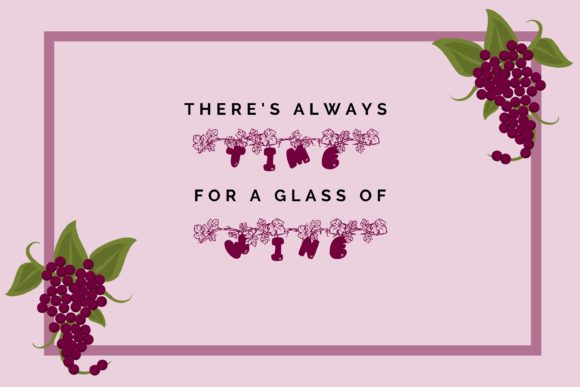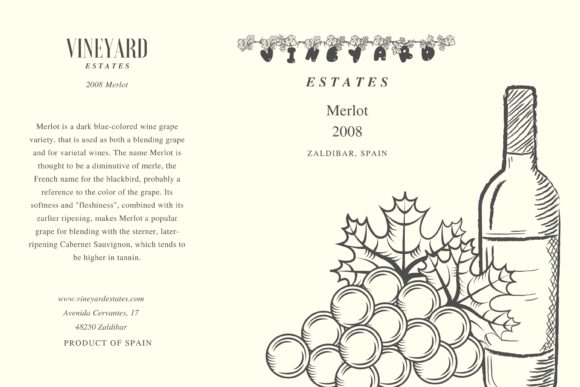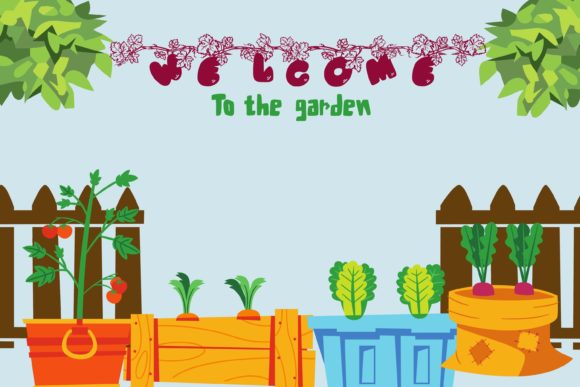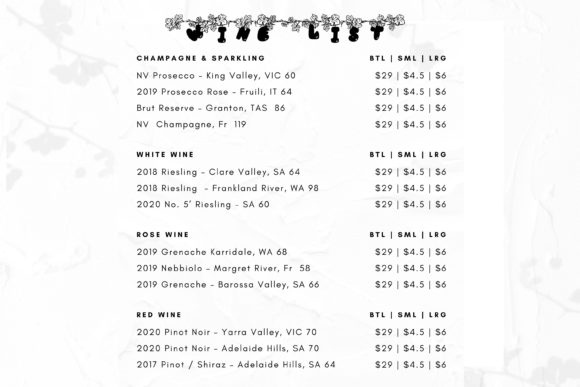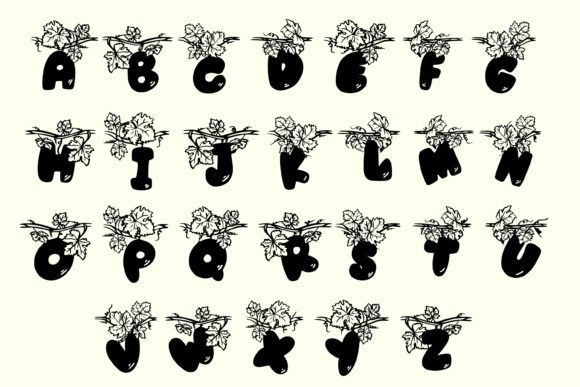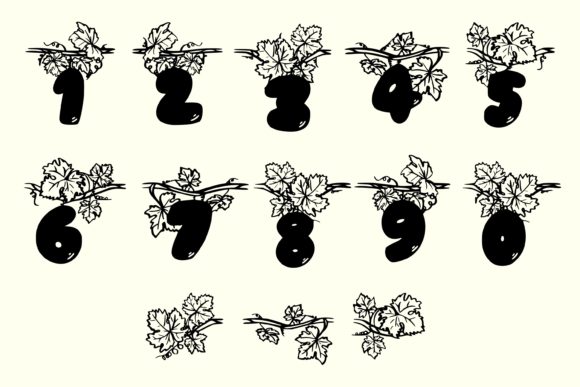
Introducing Grape Font: The Cool and Bubbly Decorative Font for Your Designs
Are you looking for a font that can add a touch of fun and playfulness to your designs? Look no further than Grape Font! This cool and bubbly decorative font is perfect for a variety of projects, from sticker designs and poster designs to decorations for classrooms and more. With Grape Font, you can make your art look outstanding and eye-catching, perfect for grabbing the attention of your audience.
What Makes Grape Font Special?
Grape Font is a unique and stylish font that is sure to make your designs stand out. Its cool and bubbly appearance is perfect for adding a touch of whimsy and fun to any project. The font is highly versatile, making it suitable for a wide range of applications, from creative crafts to commercial designs. Whether you’re a designer, crafter, or educator, Grape Font is a great addition to your font collection.
Perfect for Sticker Designs
If you’re looking for a font for your sticker designs, Grape Font is an excellent choice. The font’s playful and eye-catching appearance makes it perfect for creating stickers that are both fun and functional. You can use Grape Font to create stickers for kids, decorations for laptops or water bottles, or even stickers for your craft projects. The possibilities are endless!
Ideal for Poster Designs
Grape Font is also ideal for poster designs. The font’s bold and bubbly appearance makes it perfect for creating eye-catching posters that grab attention. Whether you’re designing a poster for a school project, a business promotion, or a social event, Grape Font is a great choice. You can use the font to create a fun and playful title, or to add a touch of whimsy to your design.
Great for Classroom Decorations
If you’re an educator, Grape Font is a great addition to your classroom decorations. You can use the font to create fun and colorful decorations, such as alphabet charts, number lines, or motivational posters. Grape Font is also perfect for creating labels and signs for your classroom, adding a touch of personality to your teaching space.
Why Choose Grape Font?
So, why choose Grape Font for your designs? Here are just a few reasons:
- Unique and stylish: Grape Font is a one-of-a-kind font that will make your designs stand out.
- Highly versatile: The font is suitable for a wide range of applications, from creative crafts to commercial designs.
- Fun and playful: The font’s cool and bubbly appearance adds a touch of fun and playfulness to any design.
Tips for Using Grape Font
Here are a few tips for using Grape Font in your designs:
- Experiment with colors: Grape Font looks great in a variety of colors, so don’t be afraid to experiment and find the perfect hue for your design.
- Mix and match: Combine Grape Font with other fonts and graphics to create a unique and eye-catching design.
- Keep it simple: Don’t overcomplicate your design – Grape Font is perfect for simple, yet effective designs.
In conclusion, Grape Font is a cool and bubbly decorative font that is perfect for a variety of designs, from sticker designs and poster designs to classroom decorations. With its unique and stylish appearance, Grape Font is sure to make your art look outstanding and eye-catching. So why not give Grape Font a try and see the difference it can make in your designs?